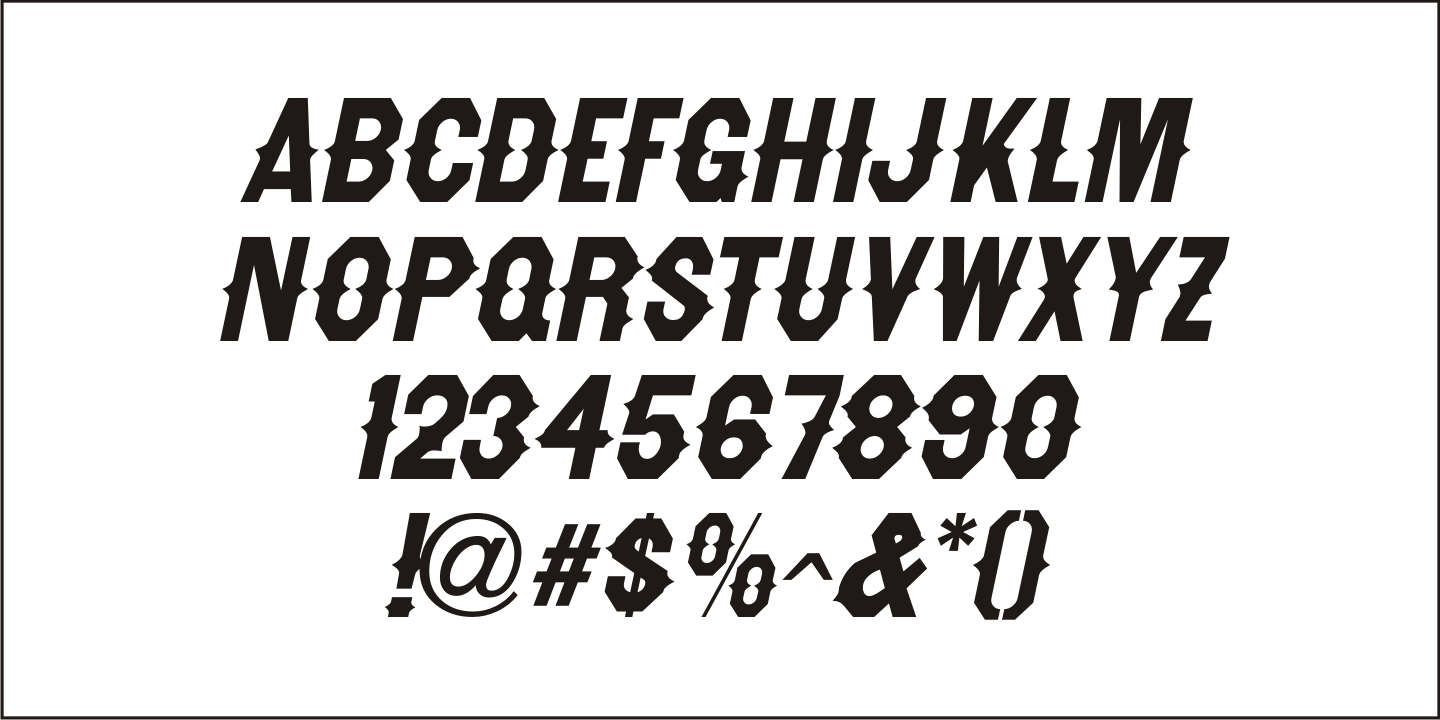
Spurwood
The wood type lettering which was the inspiration for Hayfork JNL has been given a spurred treatment, and is now available as Spurwood JNL in both regular and oblique versions.